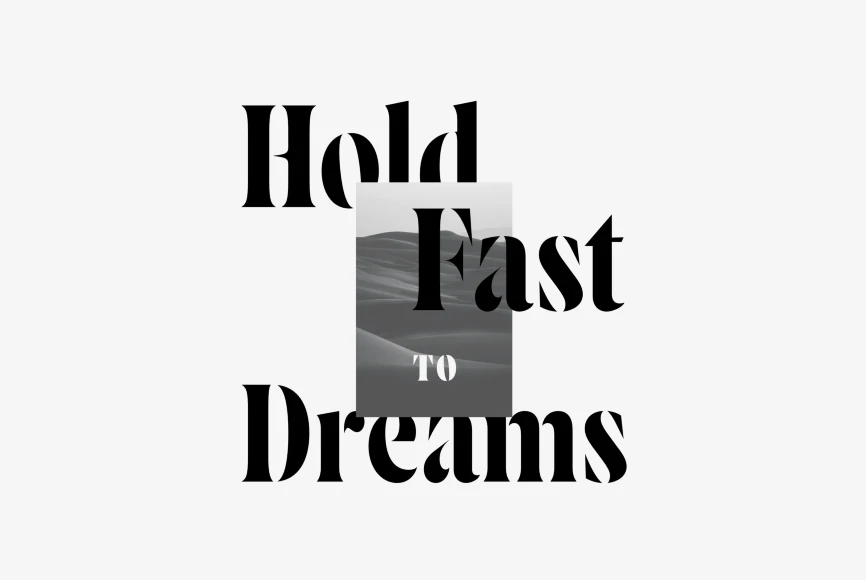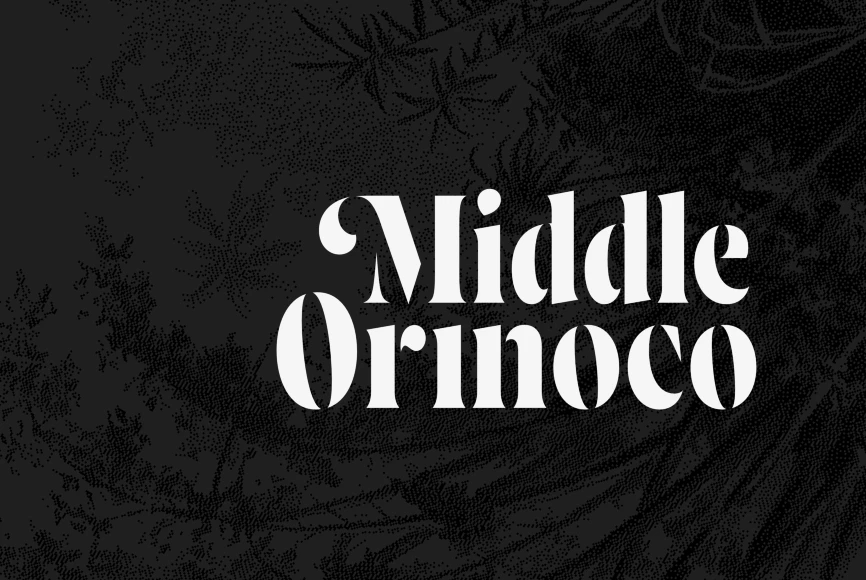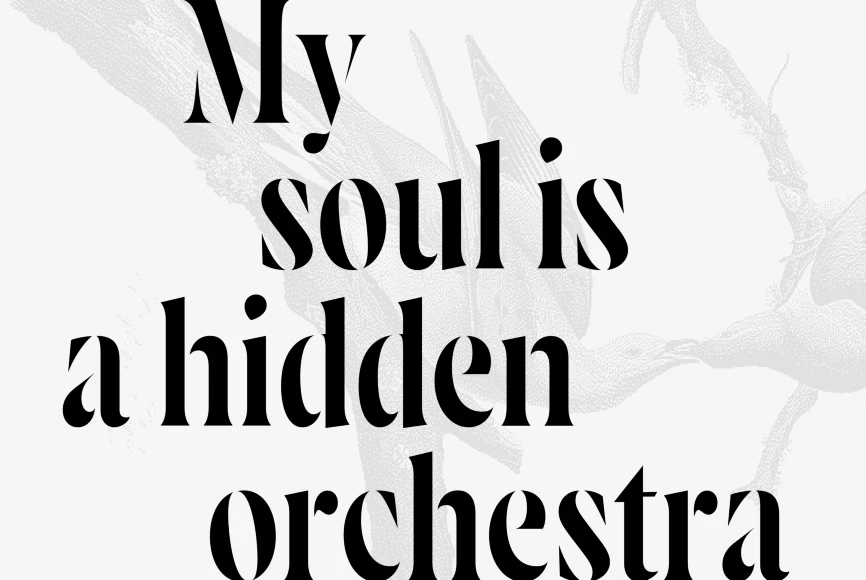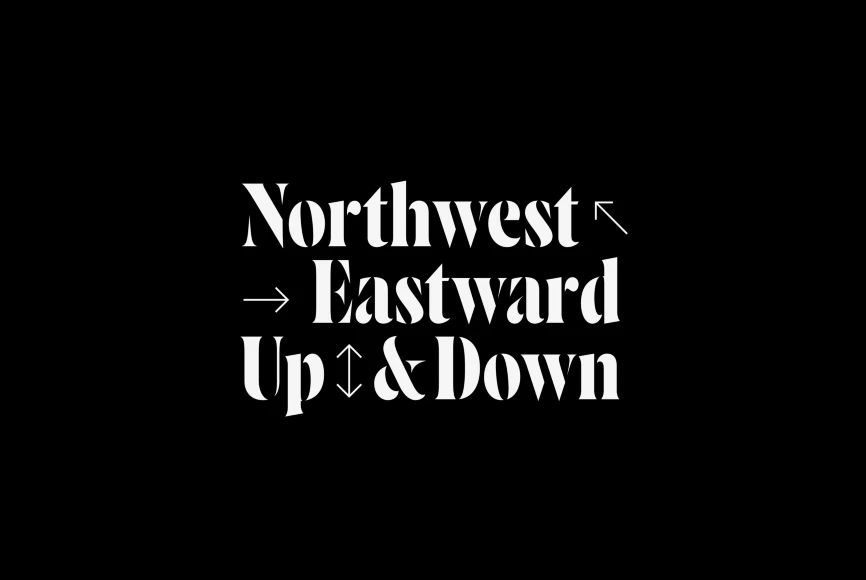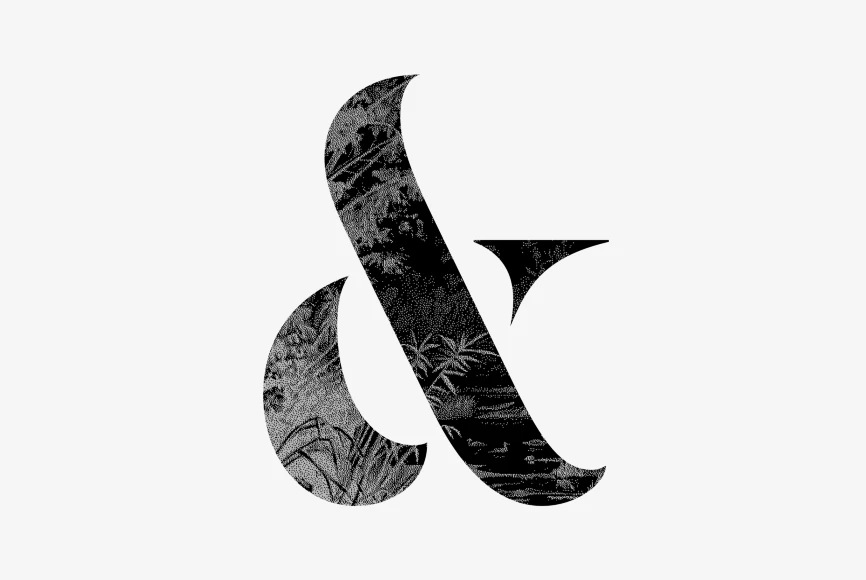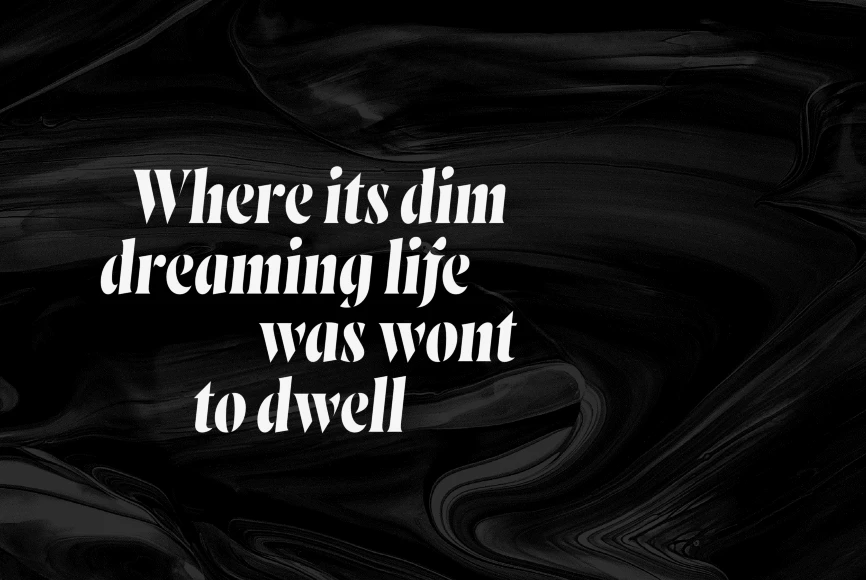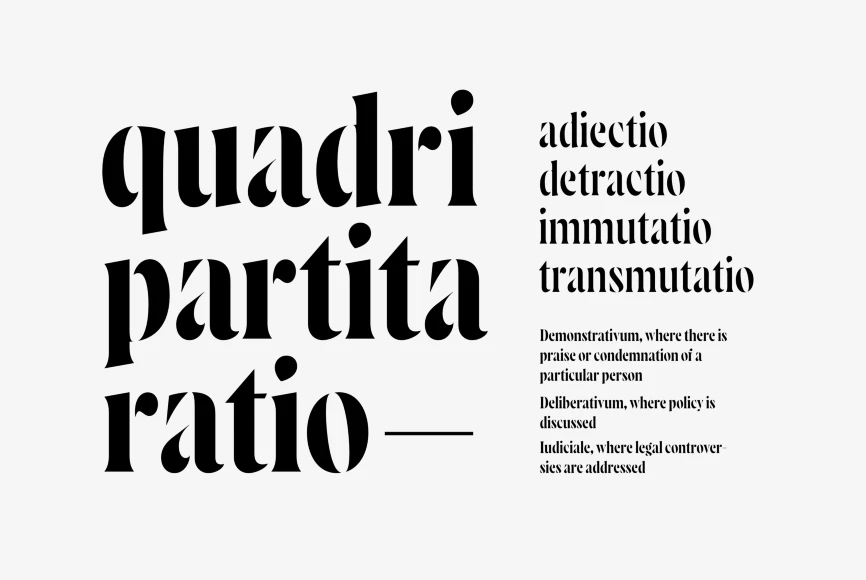
Wayfinder Stencil
From Connary Fagen Fonts
Wayfinder Stencil CF is a stencil serif built for branding, logos, and headlines. Its dramatic curves and contrast are perfect for fashion, tech, art, food, and packaging. Seven weights and italics provide a wide range of elegant applications.
Designed by Connary Fagen